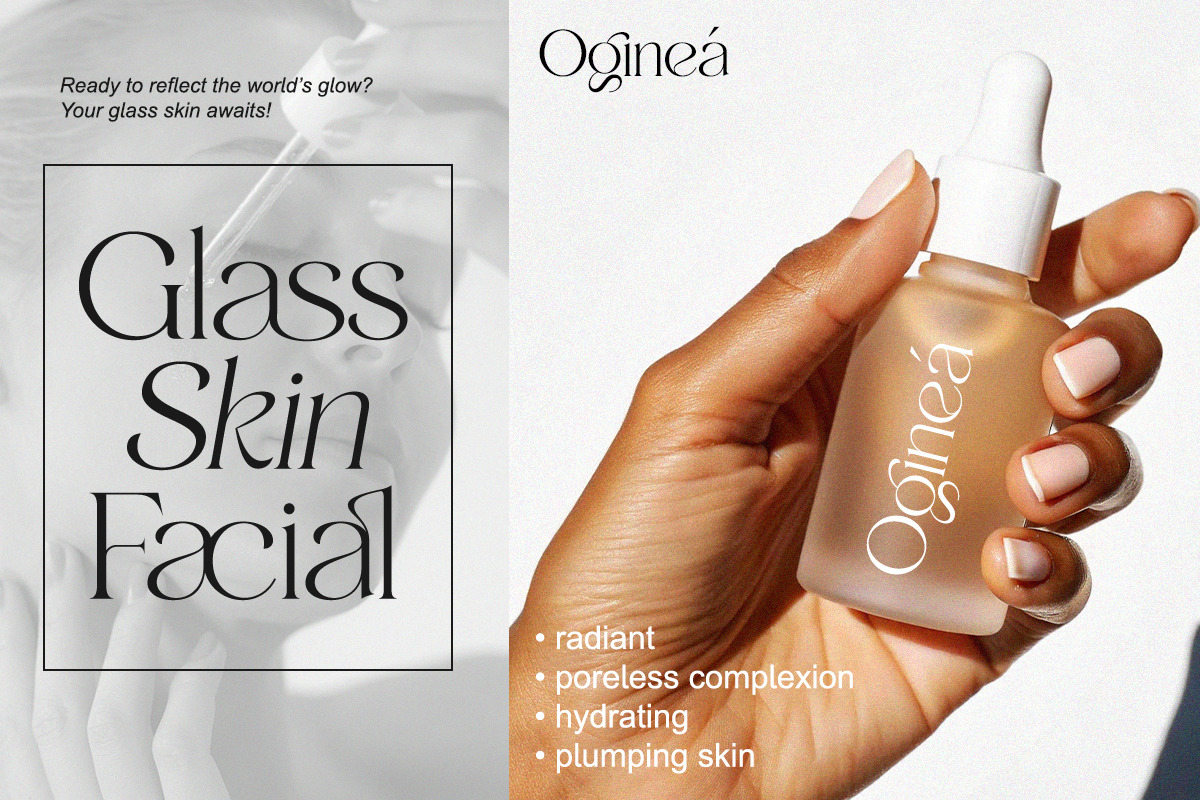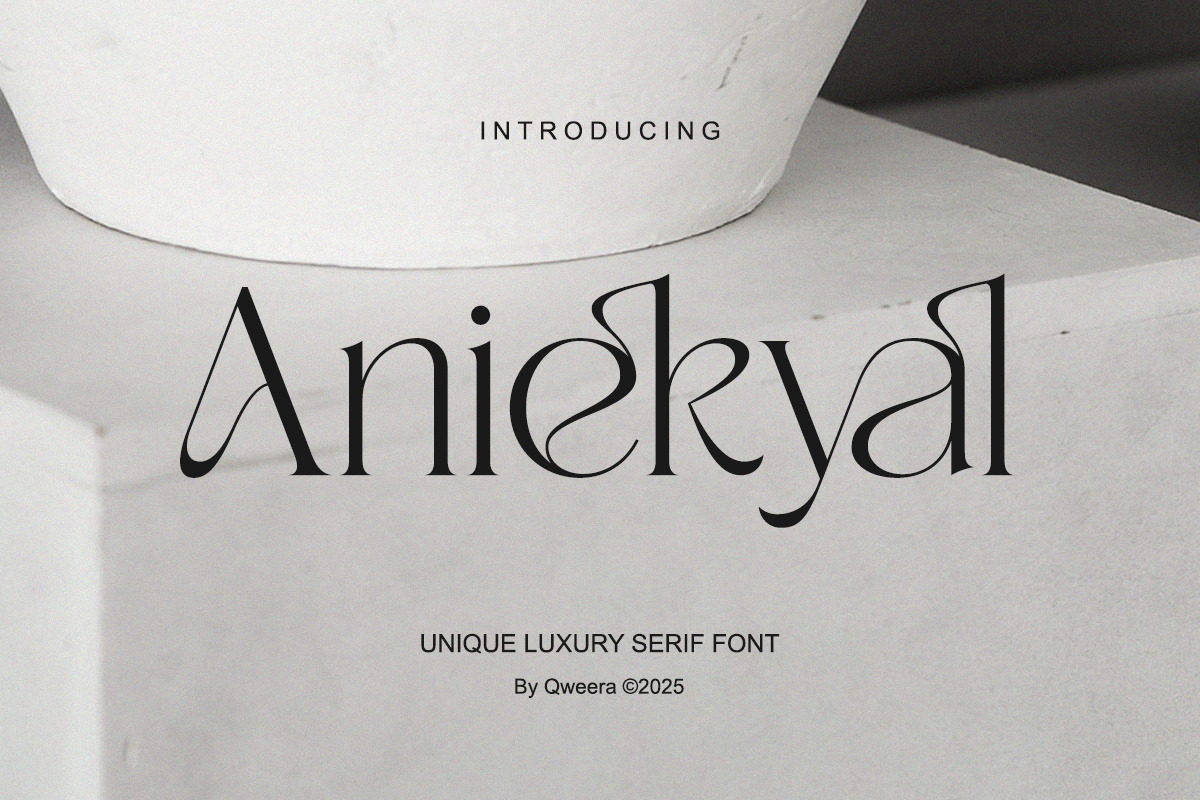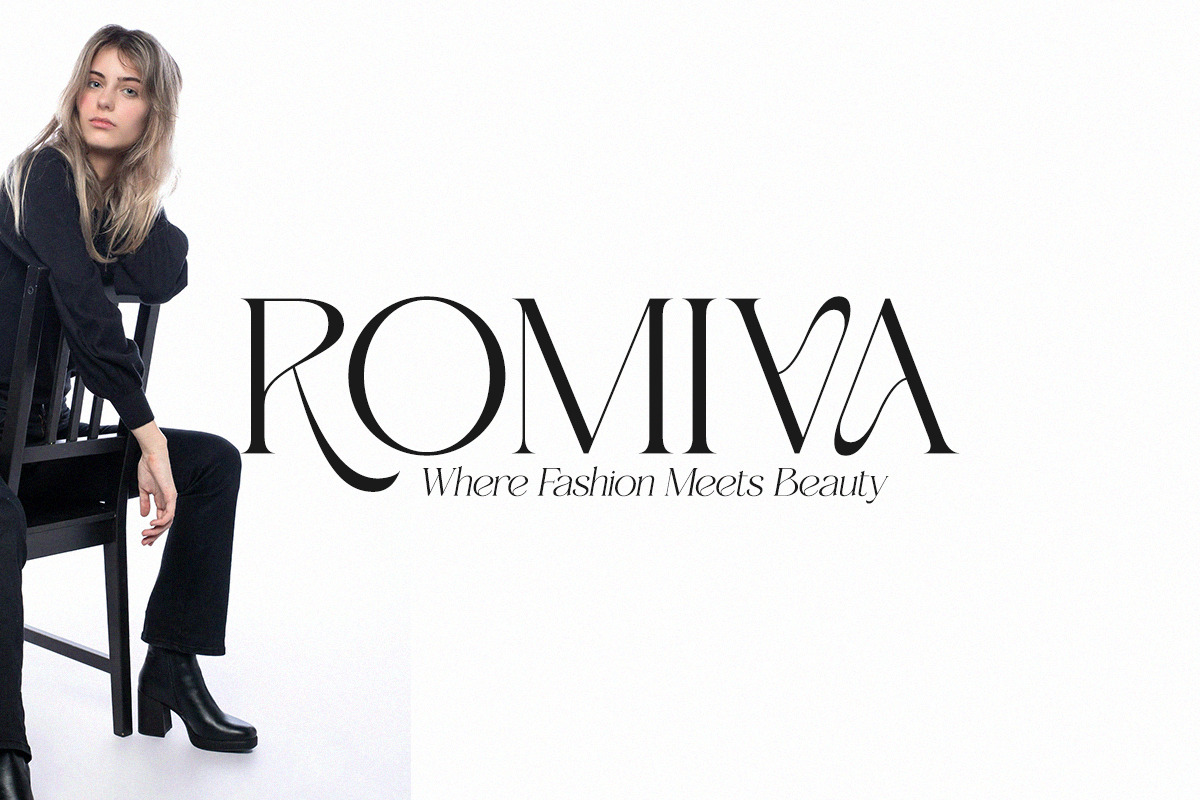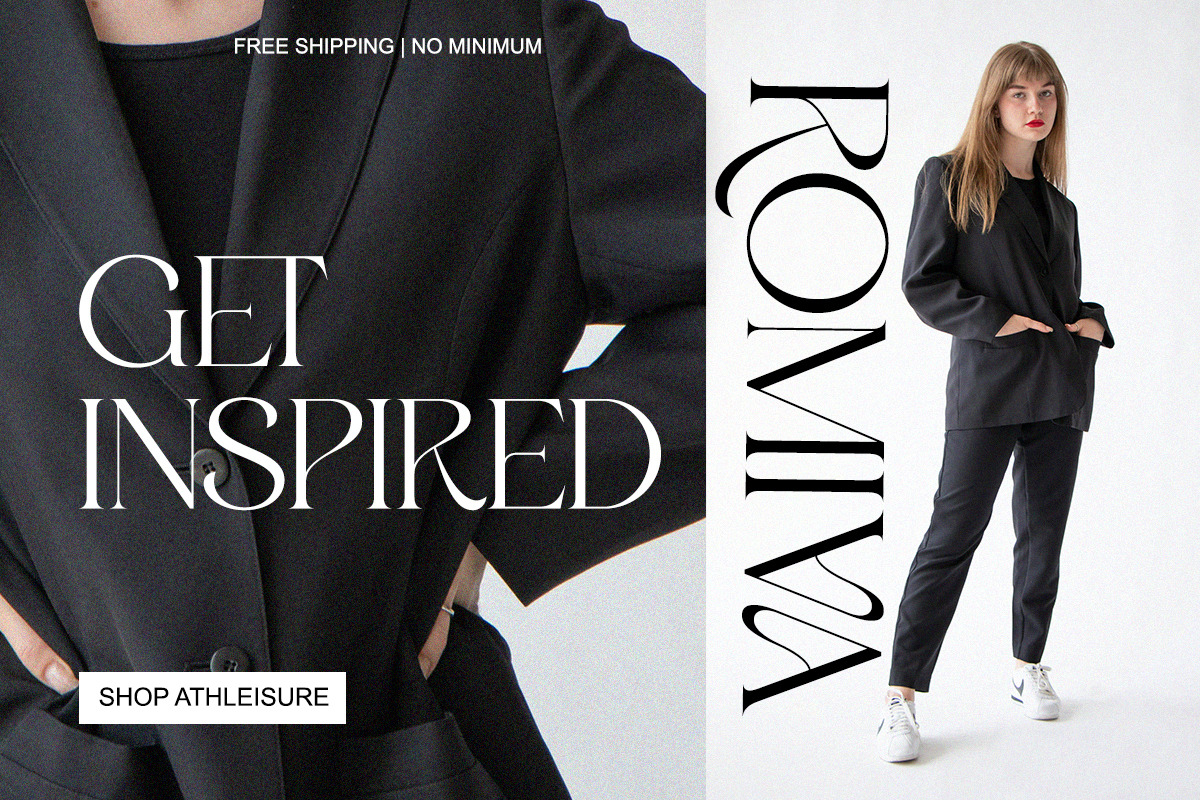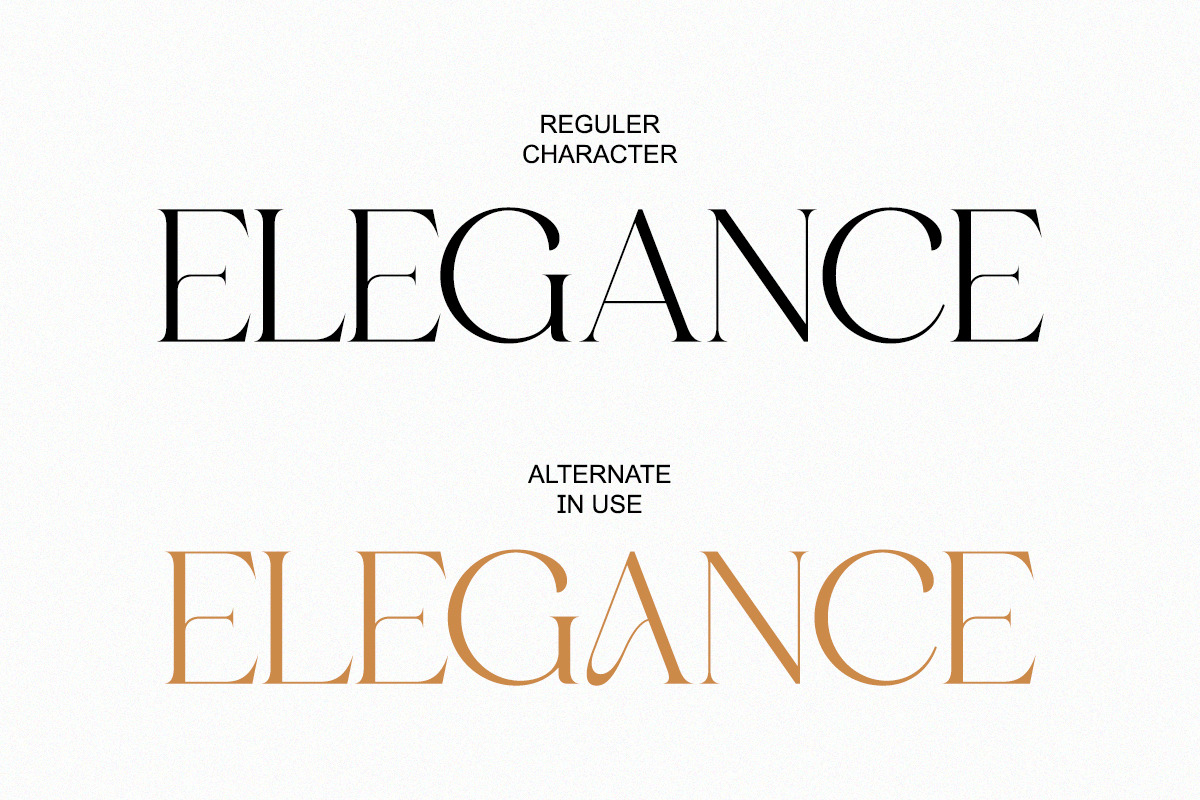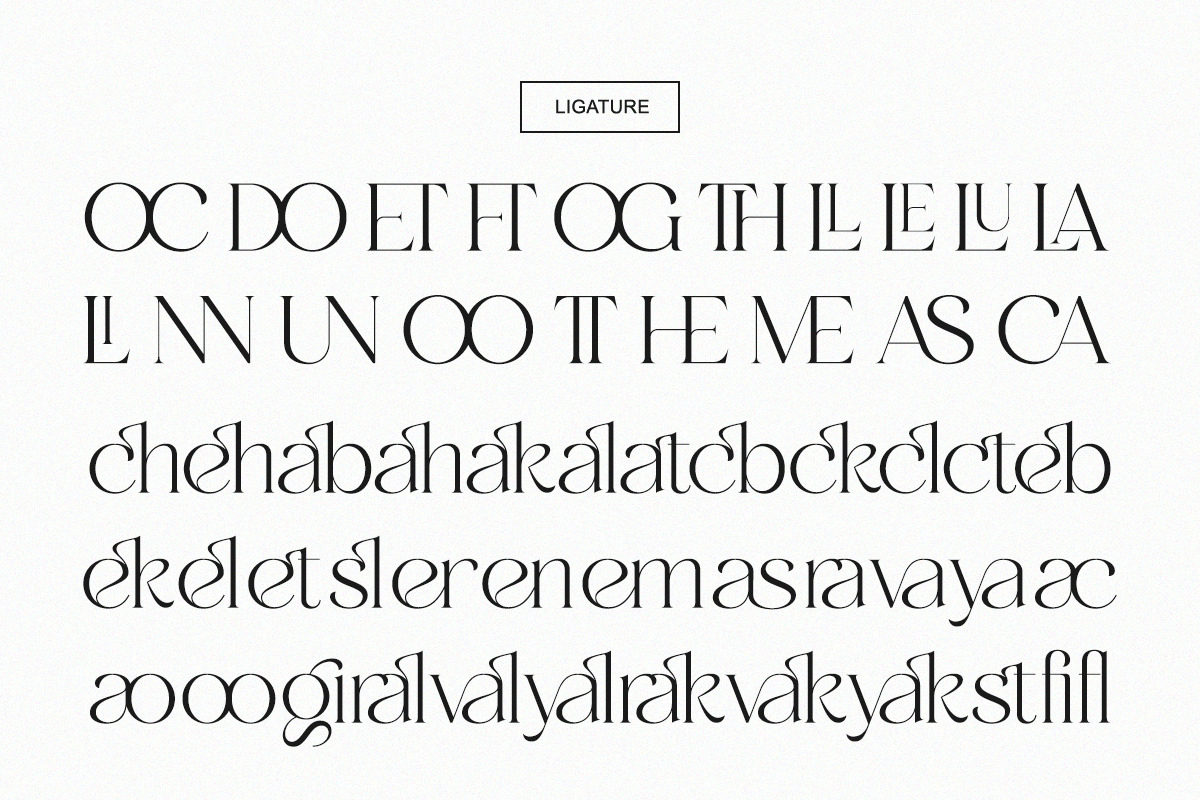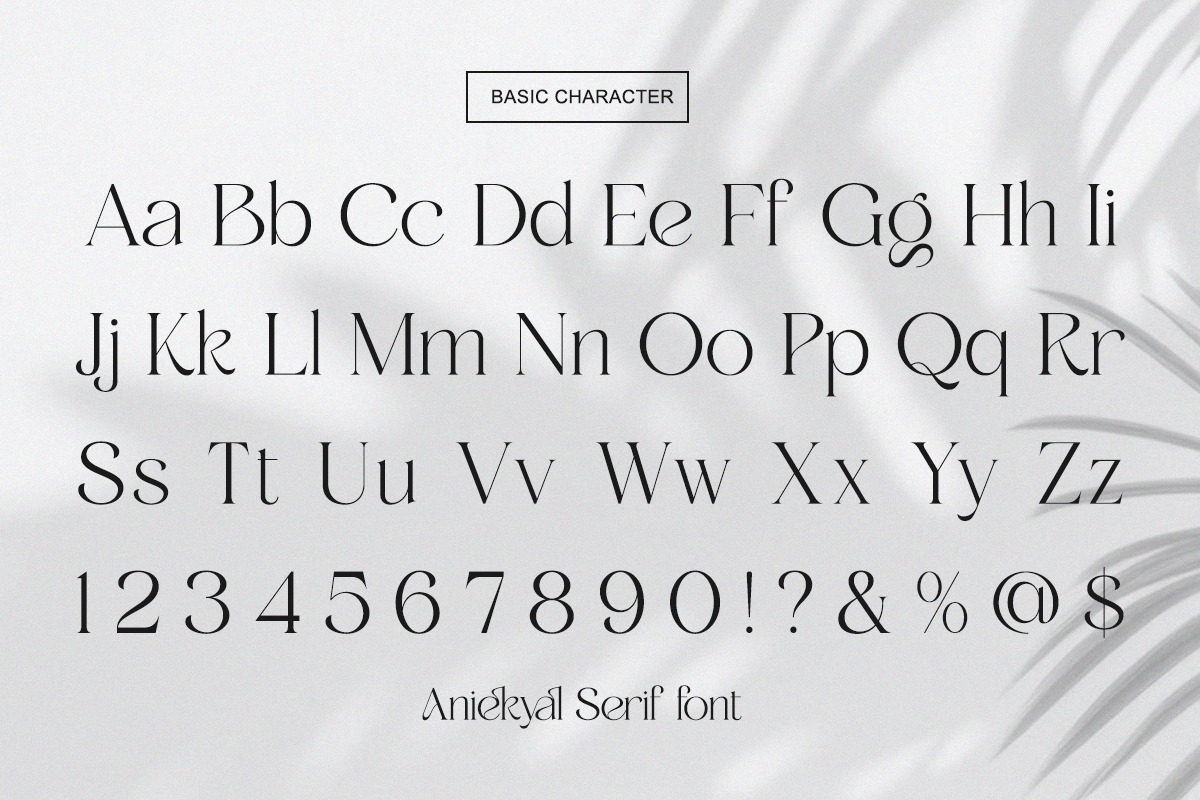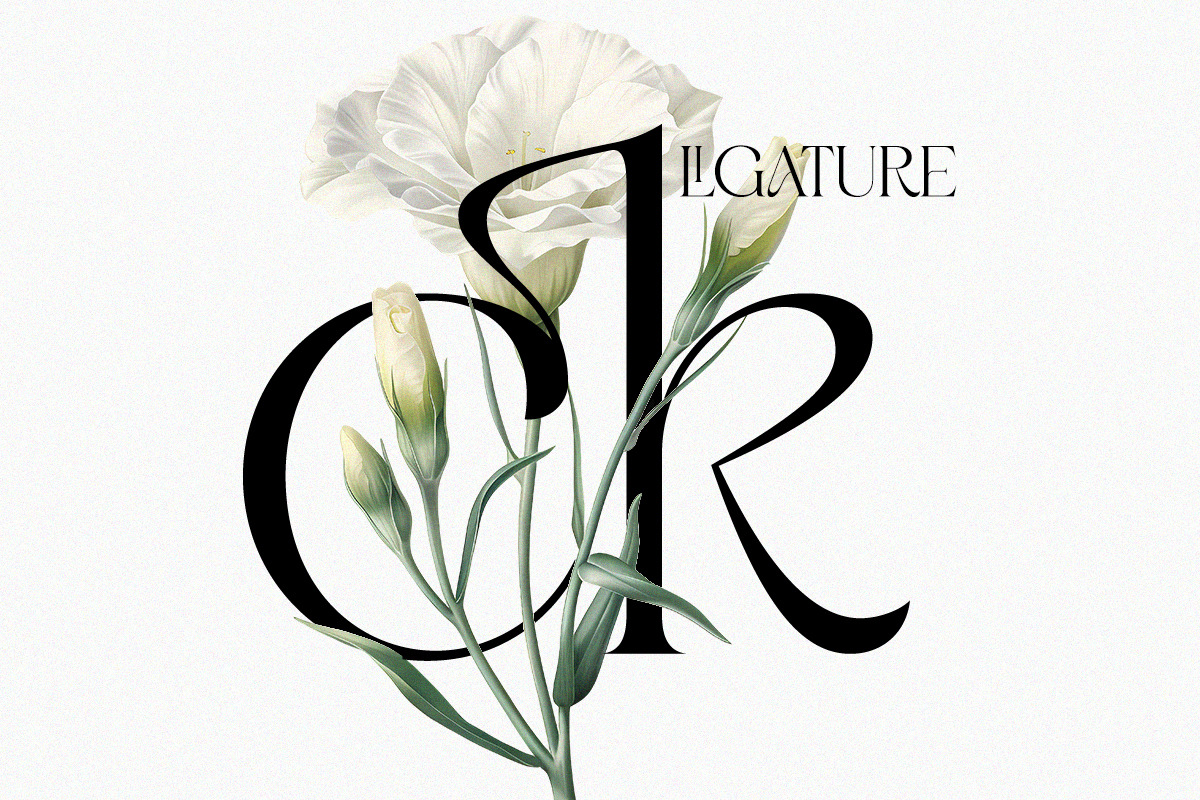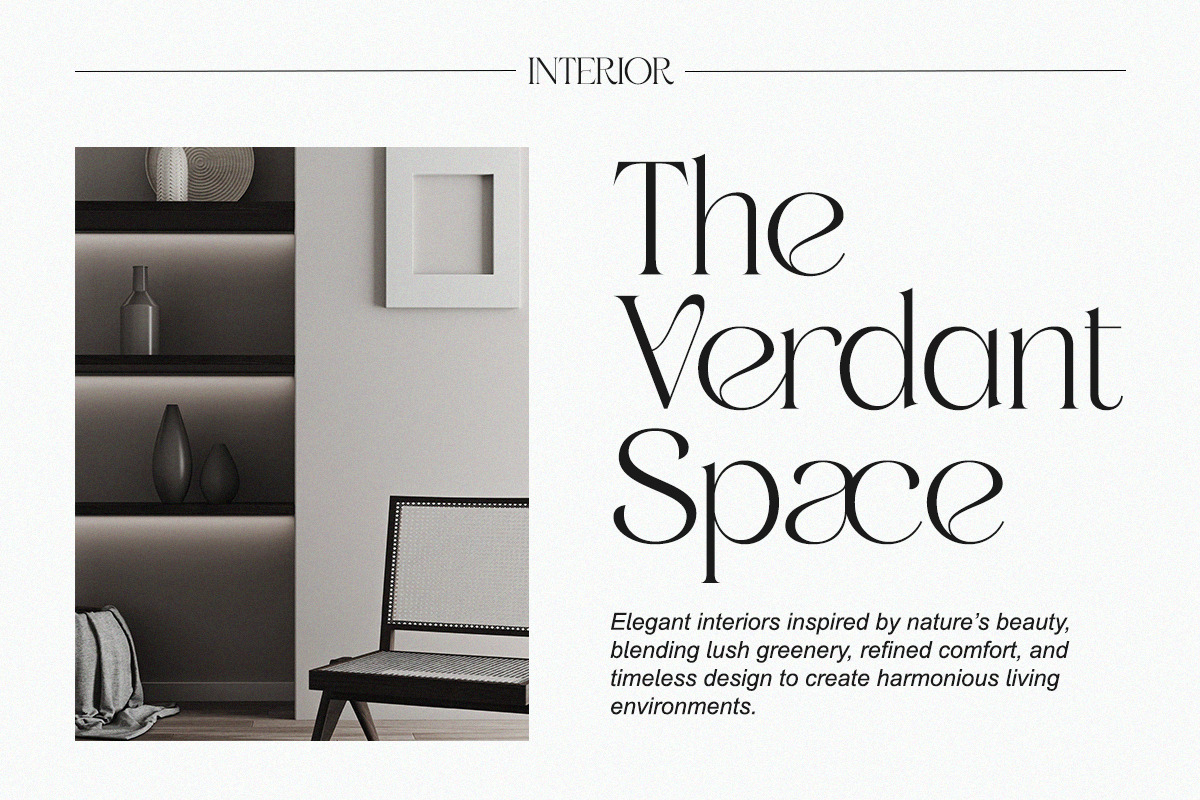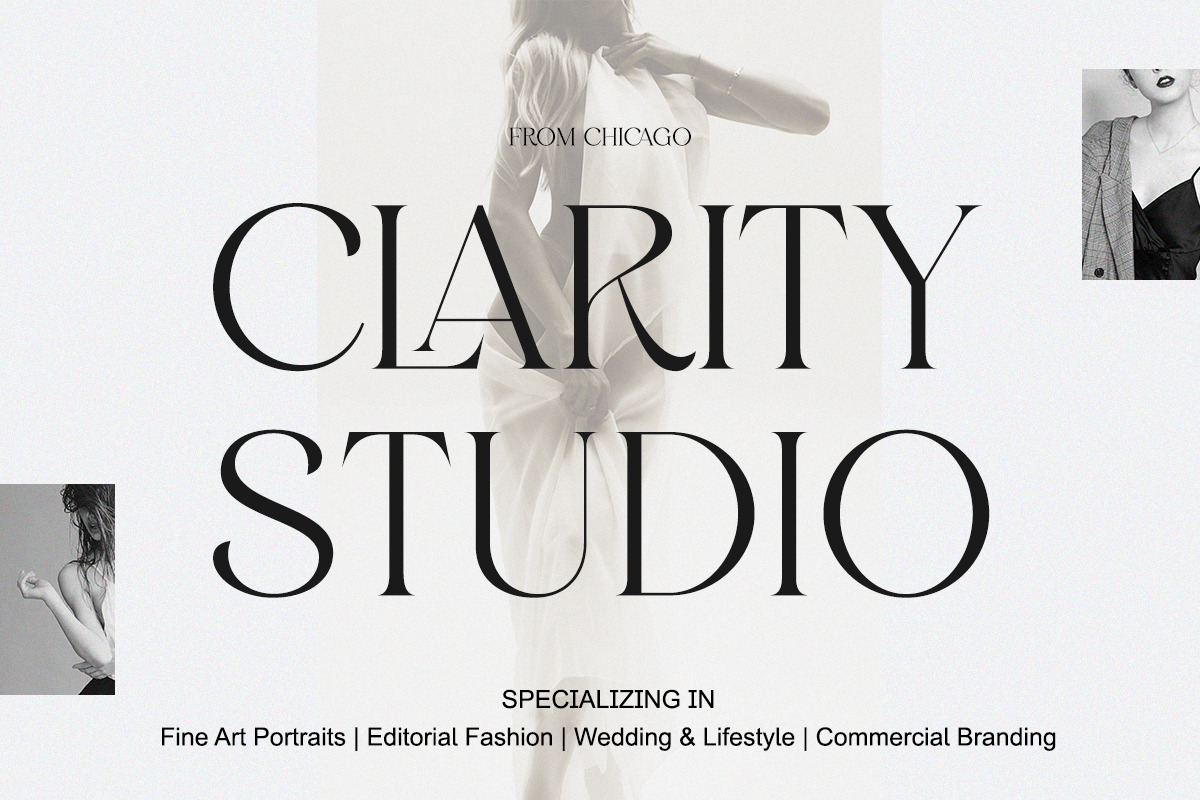
Aniekyal - Luxury Serif Font
Introducing Aniekyal – Luxury Serif Font, a distinctive typeface that fuses modern sophistication with timeless charm. Designed with unique letterforms, stylish alternates, and refined ligatures, Aniekyal offers an elevated aesthetic for creatives who demand exclusivity in their design projects.
Perfect for luxury branding, fashion magazines, wedding stationery, logos, product packaging, and editorial layouts, Aniekyal delivers versatility without losing its bold, elegant character. The sleek details and crafted curves make it ideal for both display headlines and delicate typography compositions.
Bring your designs to life with Aniekyal – a luxury serif font that speaks of elegance and creativity.
✨ Font Features
- Regular & Italic
- Alternates & ligatures
🎯 Perfect For
- Luxury branding
- Editorial design
- Fashion logos
- Packaging design
- Wedding invitations
- Modern minimalist logos